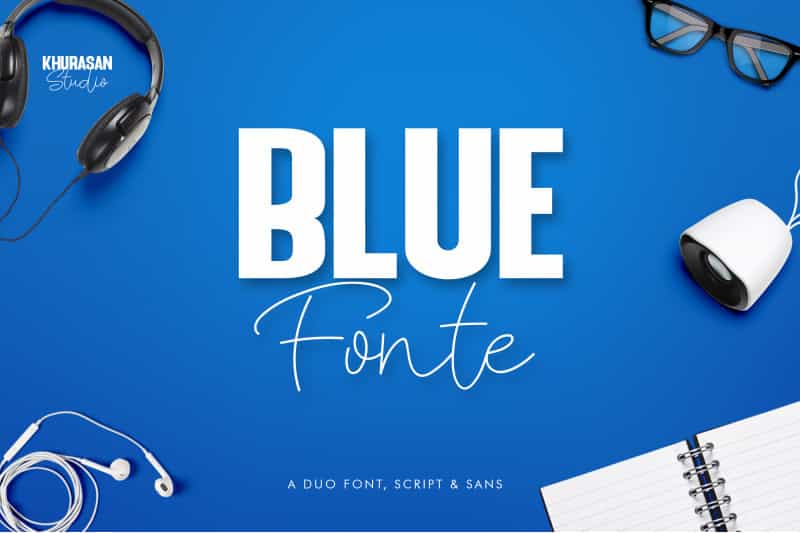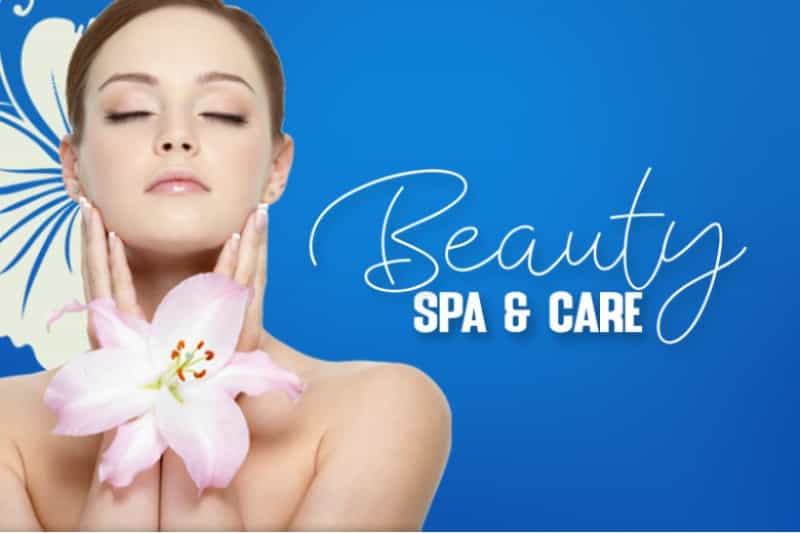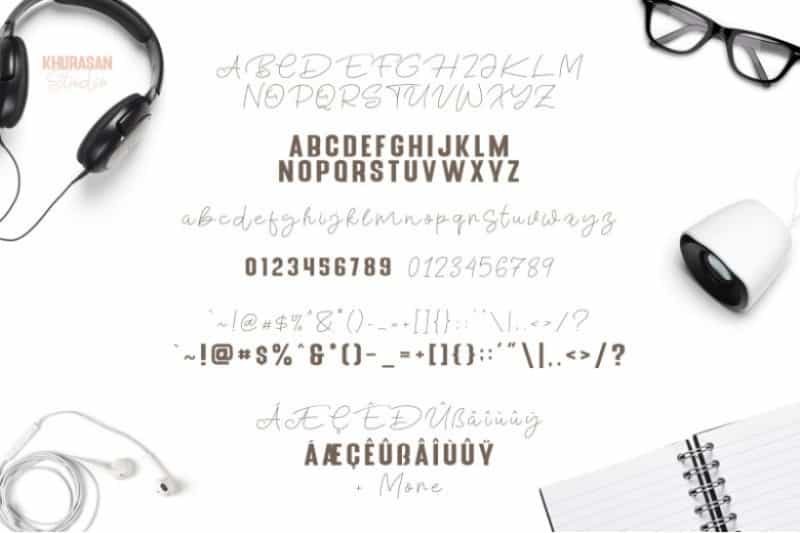
Presenting Blue Fonte Font Duo font. This is beautifully handwritten script and sans nice font type, this is a specially handmade typeface which is very useful for creating nicely looking logos and brand identities and also for the headlines. It is suitable to be used as a name card, poster, logo, magazine cover, banner, t-shirt, and headers or even large sized painting.